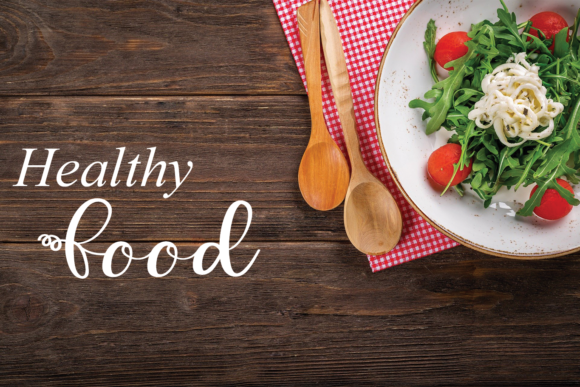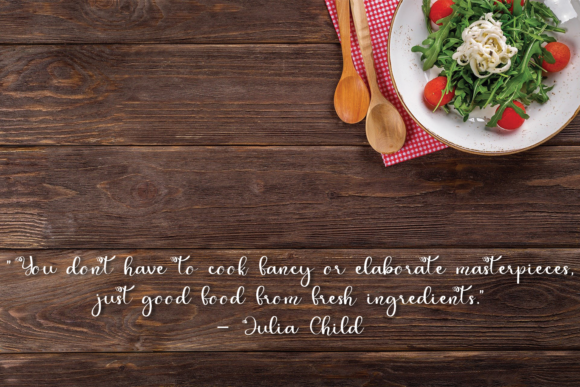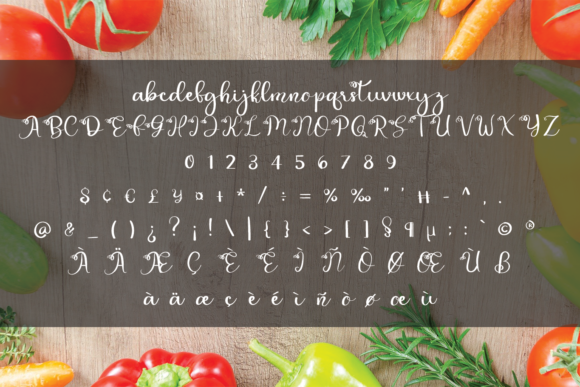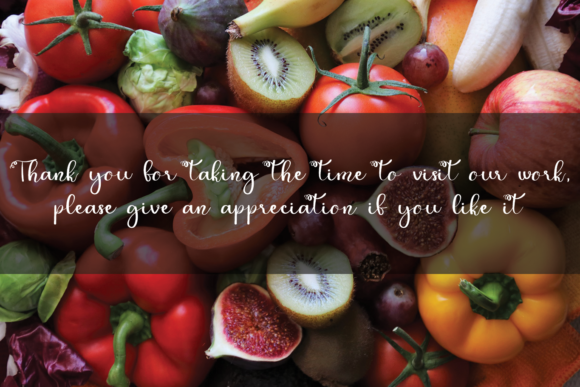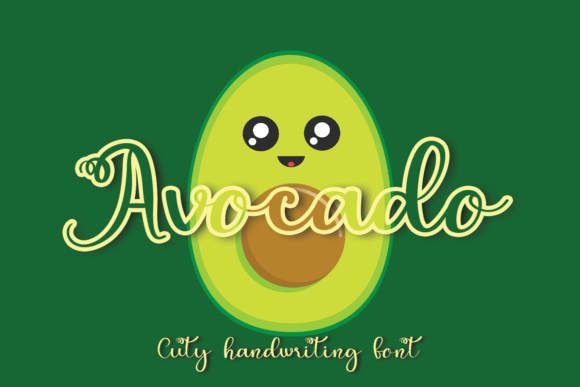
Avocado Font
Introducing Avocado, a chic and modern script font that brings a touch of elegance and sophistication to your designs. This gentle font is designed to enhance the beauty of your projects and add a joyful and romantic touch to each design.
Avocado features a stylish and contemporary script style with clean, flowing lines and elegant letterforms. Its smooth curves and balanced strokes give it a refined and fashionable look, making it suitable for a wide range of design ideas. Whether you’re working on wedding invitations, branding materials, packaging, social media graphics, or any other creative project, Avocado will elevate your designs and make them stand out.
With its versatility, Avocado is capable of enhancing various design themes and aesthetics. Whether you’re aiming for a minimalist, modern, feminine, or romantic look, this font will adapt seamlessly to your vision. Its chic and sophisticated nature brings a sense of class and refinement to your designs, making them visually appealing and captivating.
Avocado is crafted with attention to detail, ensuring that each letter has a unique and beautiful touch. Its graceful and fluid letterforms create an effortless flow and readability, allowing your message to shine through with clarity and elegance. Additionally, Avocado offers a range of OpenType features, including ligatures and alternate characters, giving you even more creative freedom to customize your designs.
Whether you’re designing wedding stationery, fashion branding, inspirational quotes, or any other project that requires a touch of sophistication, Avocado is the perfect choice. Its chic and modern script style will add a touch of elegance and beauty to your designs, leaving a lasting impression on your audience.
In summary, Avocado is a chic and modern script font that brings elegance and sophistication to your designs. With its joyful and romantic touch, this font is versatile and suitable for a variety of design ideas. Let Avocado be your go-to font for adding a stylish and refined look to your projects.